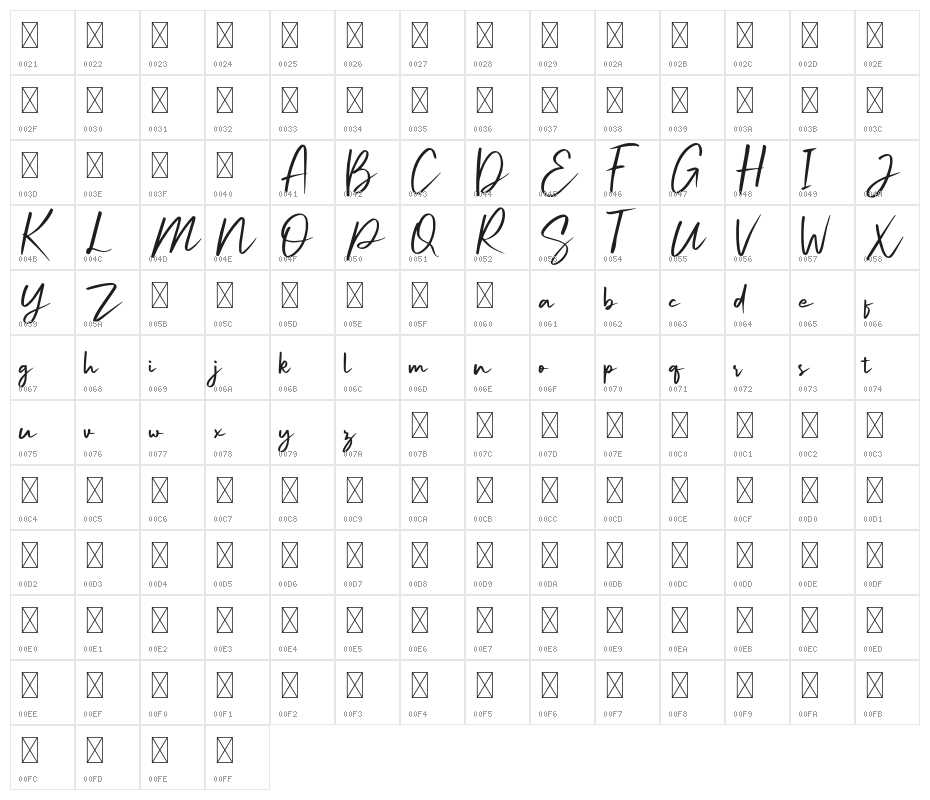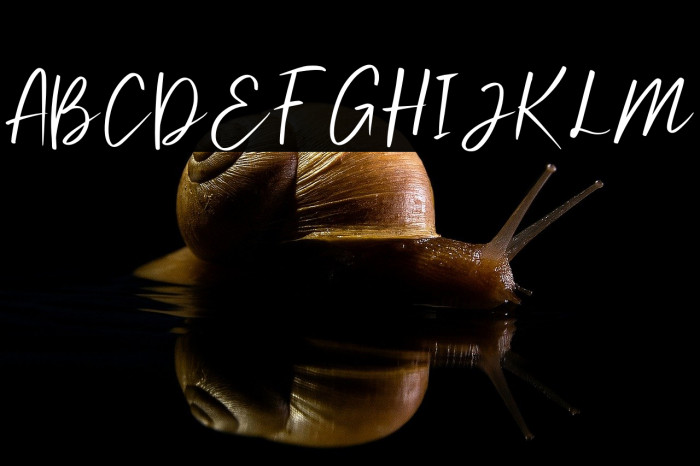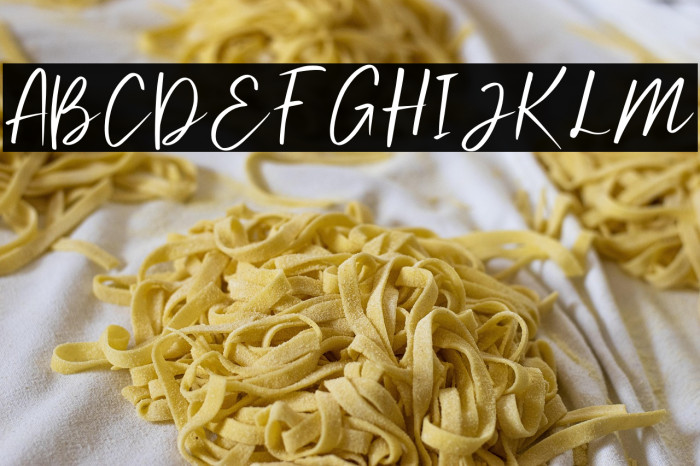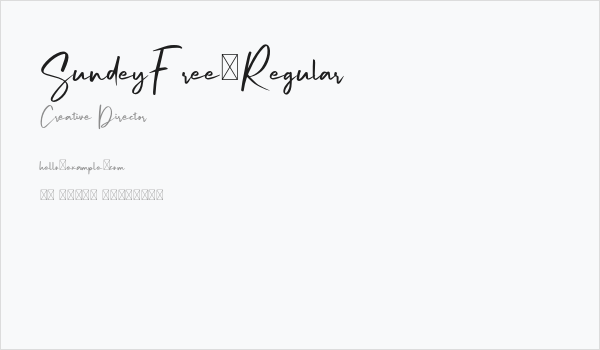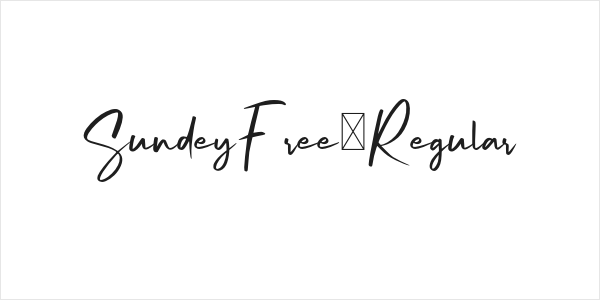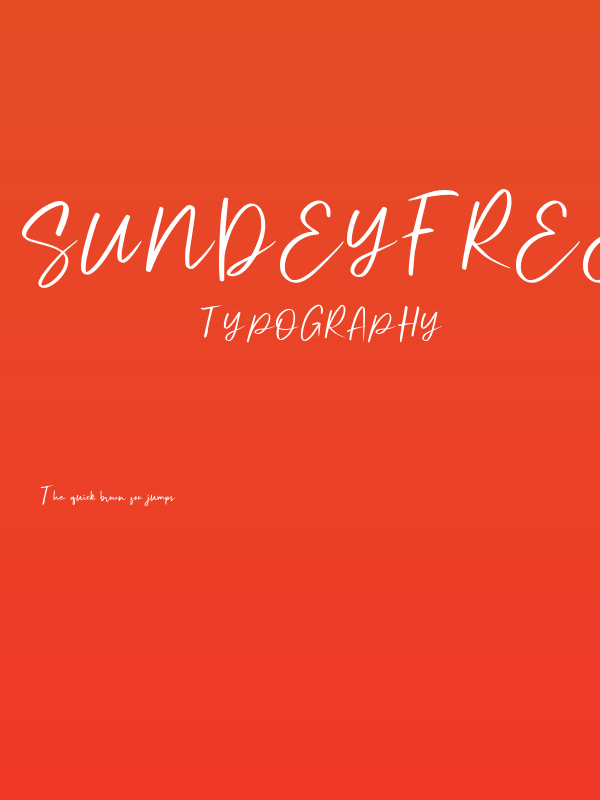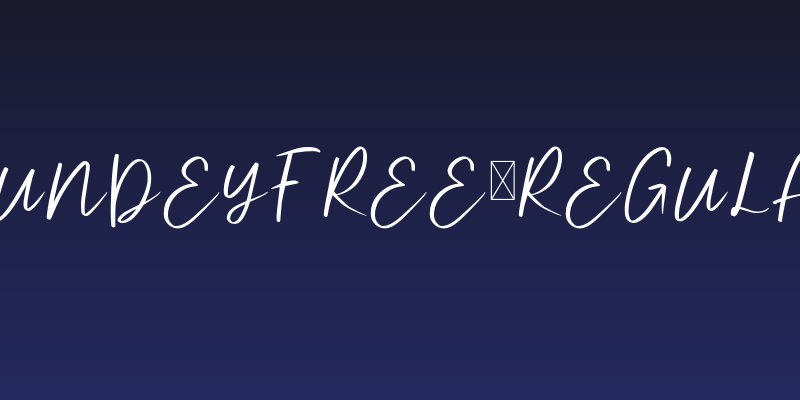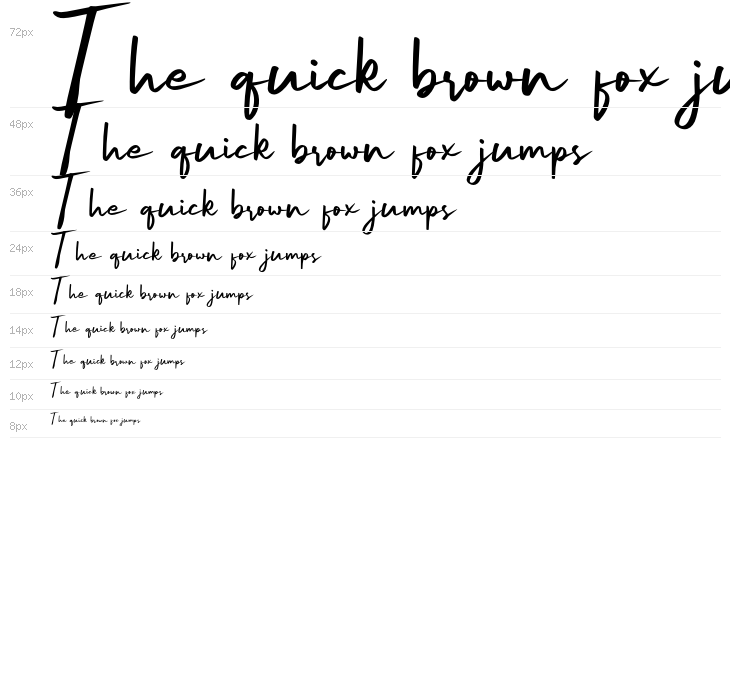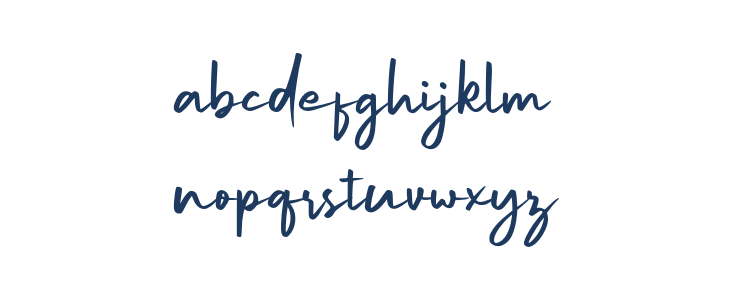
SundeyFree-Regular Font
SundeyFree-Regular Description
This font features a dynamic and flowing handwritten style, characterized by its smooth and elegant curves. The uppercase letters exhibit a playful yet sophisticated flair, with varying stroke widths that add a sense of movement and energy. The lowercase letters maintain a consistent style, offering a harmonious blend of casual and refined elements. The overall appearance is both approachable and stylish, making it suitable for a variety of design applications. The font's unique personality is enhanced by its slightly irregular baseline, which adds to its charm and authenticity.
Use CaseLogos, Headlines, Decorative text
Proposed ProjectsIdeal for wedding invitations, greeting cards, branding projects, and social media graphics.